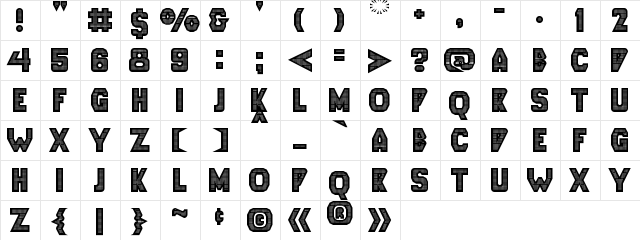
Lephnia Display Caps Regular
| Designer | Doug Peters |
Design Context for Lephnia Display Caps Typeface
Lephnia Display Caps brings ornamental detail and strong personality to headlines and identities, where visual impact matters more than quiet functionality.
Font Pairing: Pair with a clean neutral sans-serif for body copy to let Lephnia Display Caps's character lead without overwhelming the composition.
Pro Tip: Use Lephnia Display Caps exclusively at display sizes — it was designed to be seen, not read at length. Let a neutral companion handle body copy.